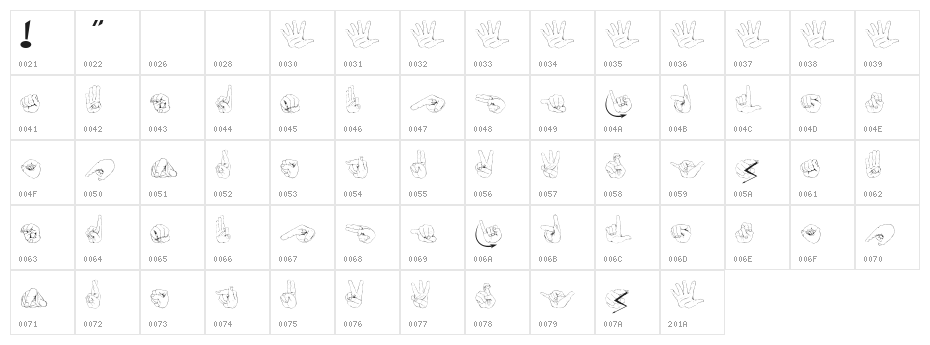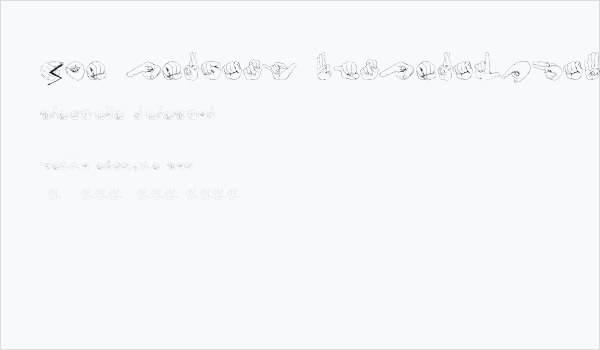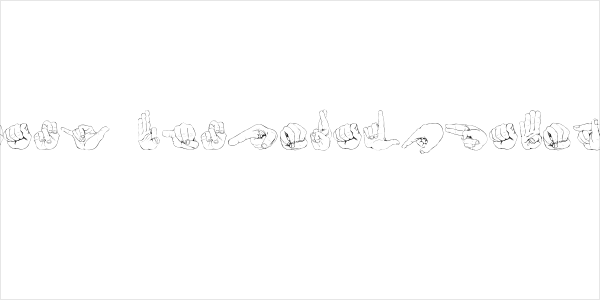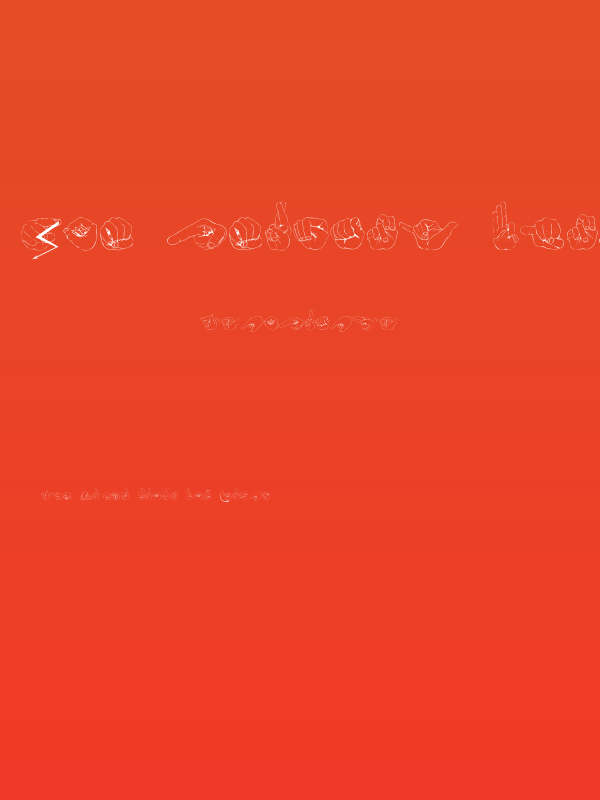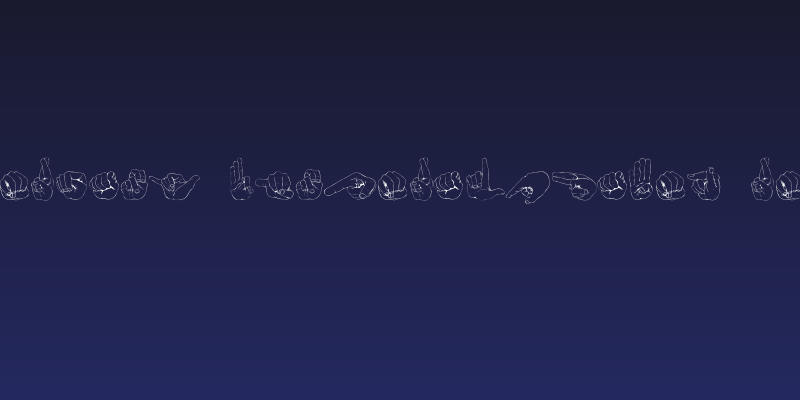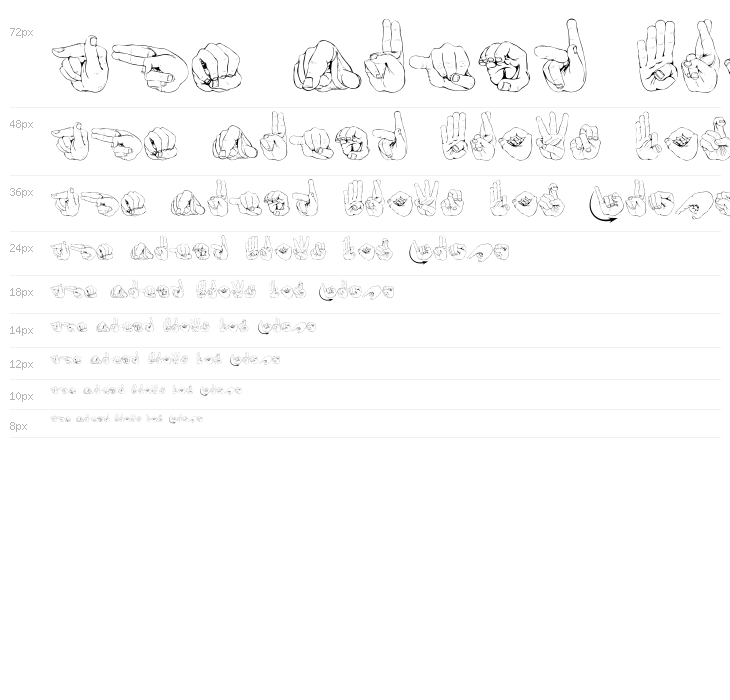
ZOE Germany Fingeralphabet Regular Font
ZOE Germany Fingeralphabet Regular Description
This font is a unique representation of the German finger alphabet, showcasing each letter and number through detailed hand illustrations. The design is intricate, capturing the nuances of hand shapes and positions with precision. Each character is depicted with clarity, making it an educational tool for learning sign language. The style is consistent throughout, with a focus on accuracy and readability. The special characters are creatively represented, maintaining the overall theme of hand gestures. This font is not only functional but also visually engaging, offering a distinctive approach to typography.
| Overall Style | Educational, Illustrative |
| Use Case | Educational materials, Sign language resources |
| Proposed Projects | Ideal for educational materials, sign language resources, and inclusive communication tools. |